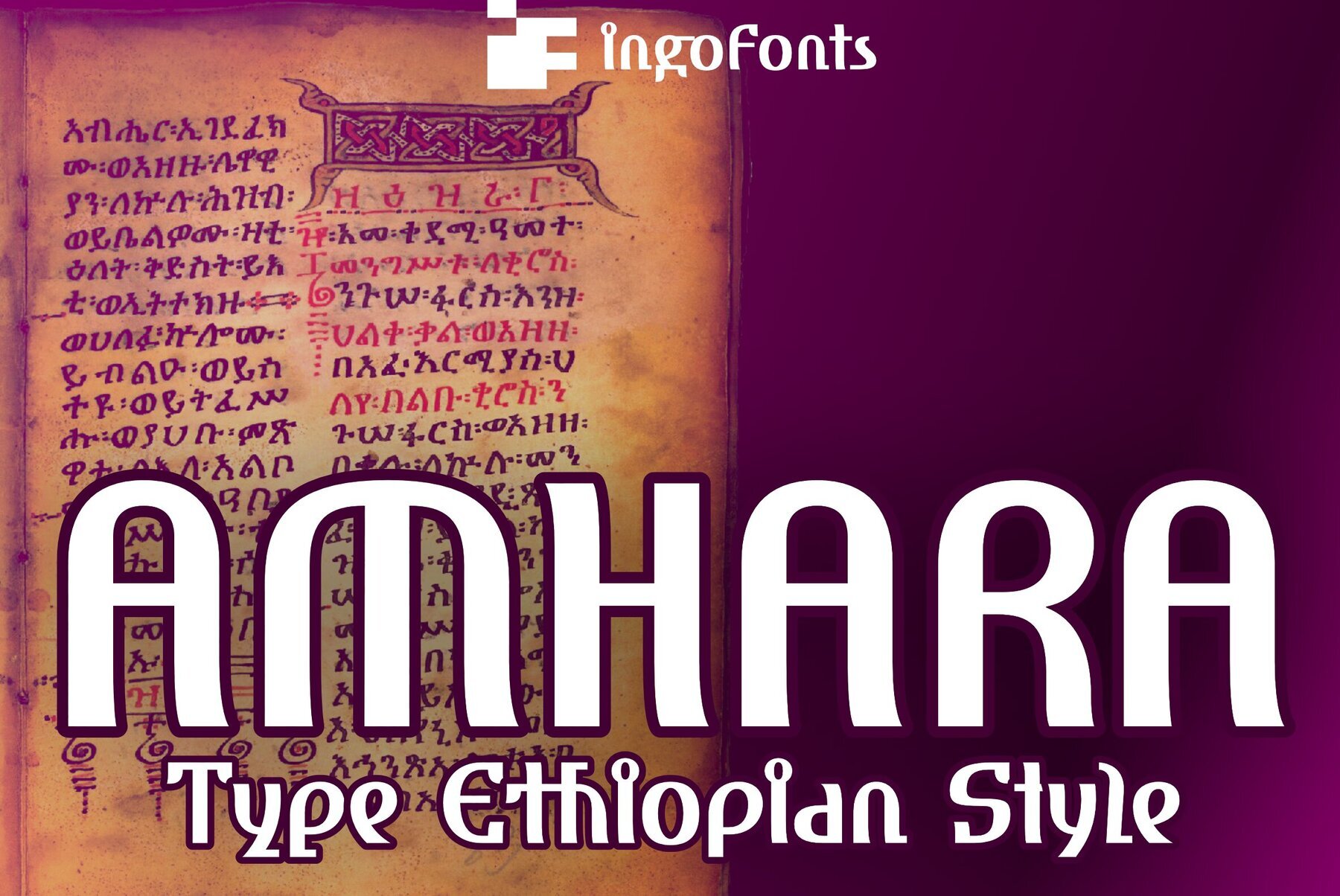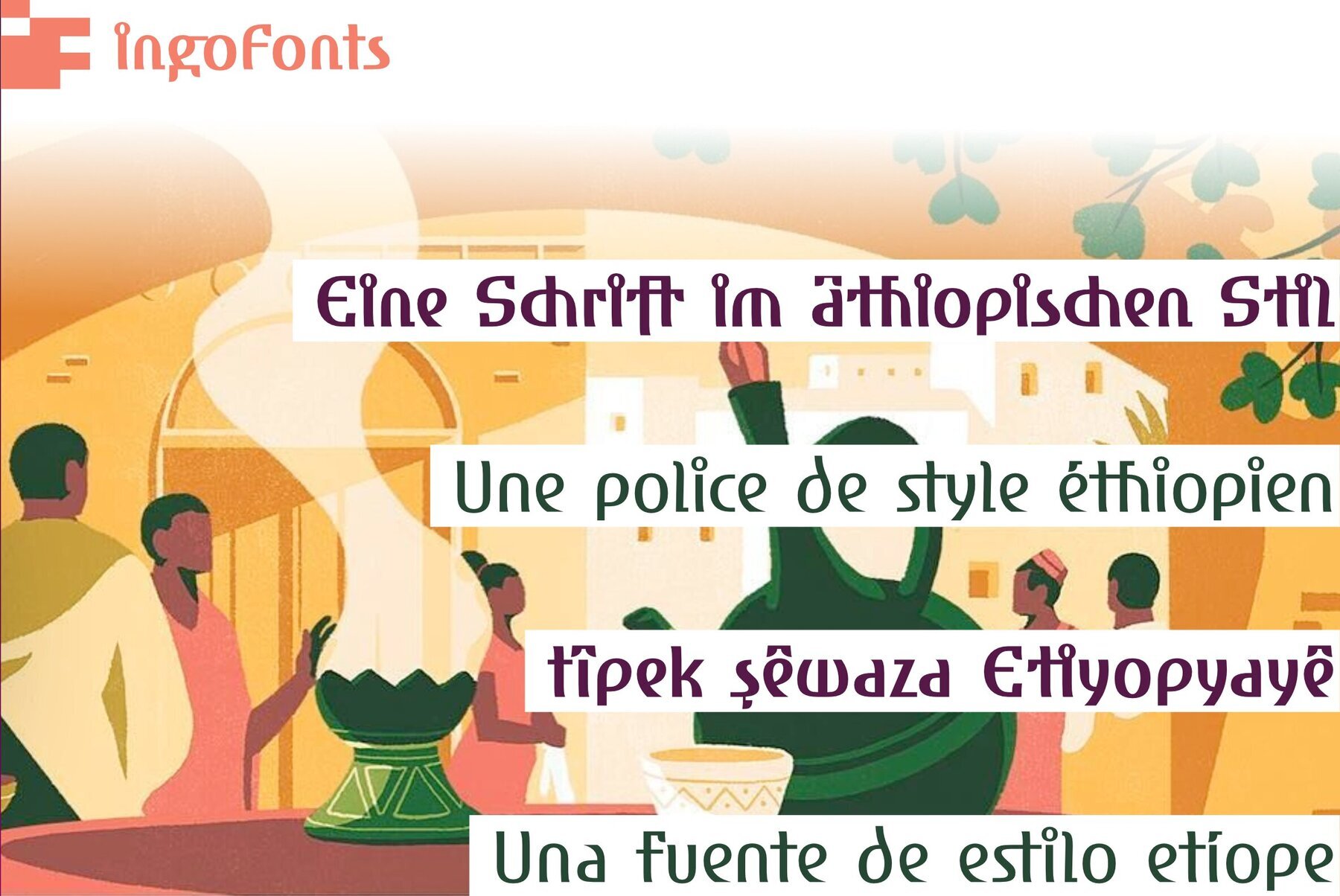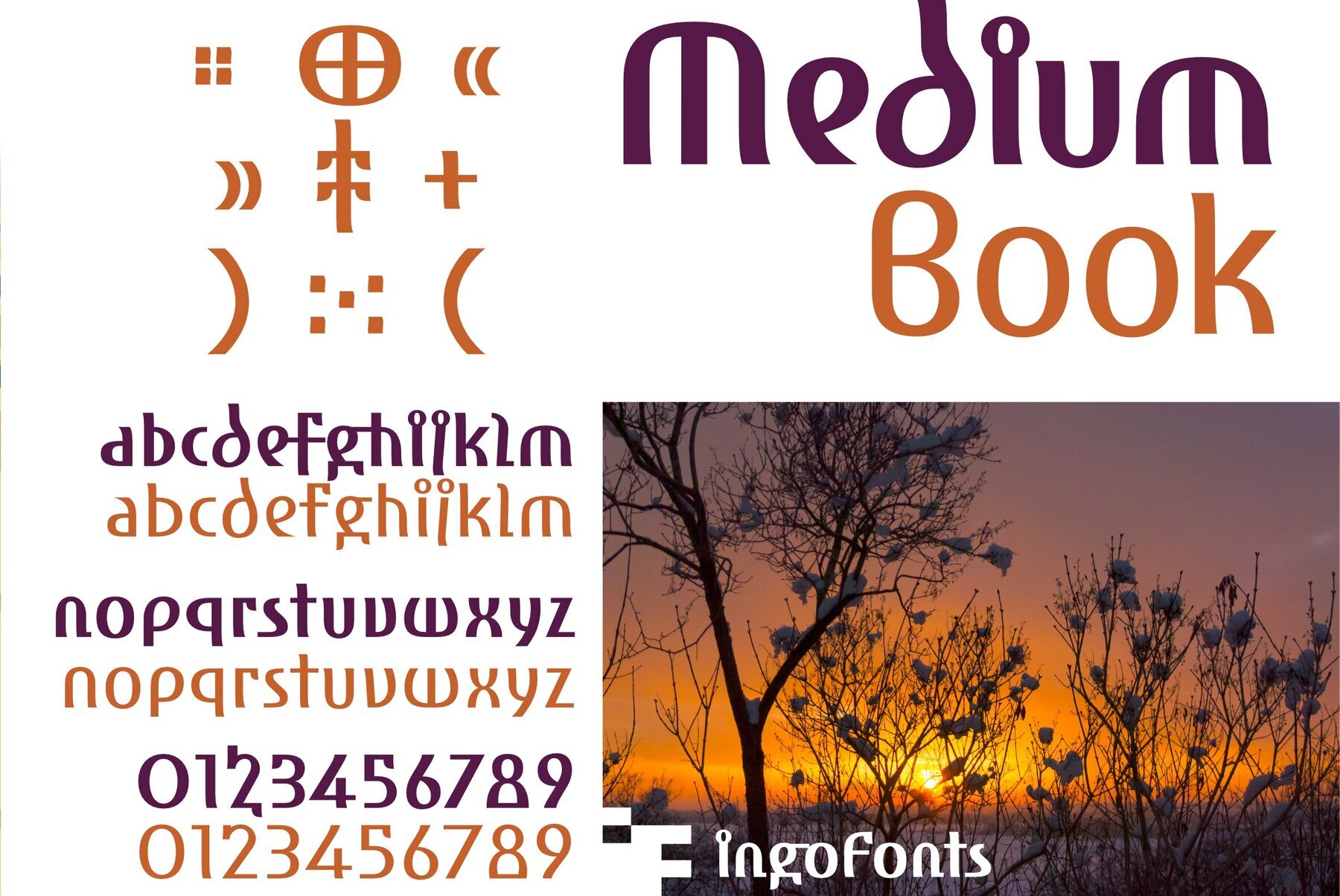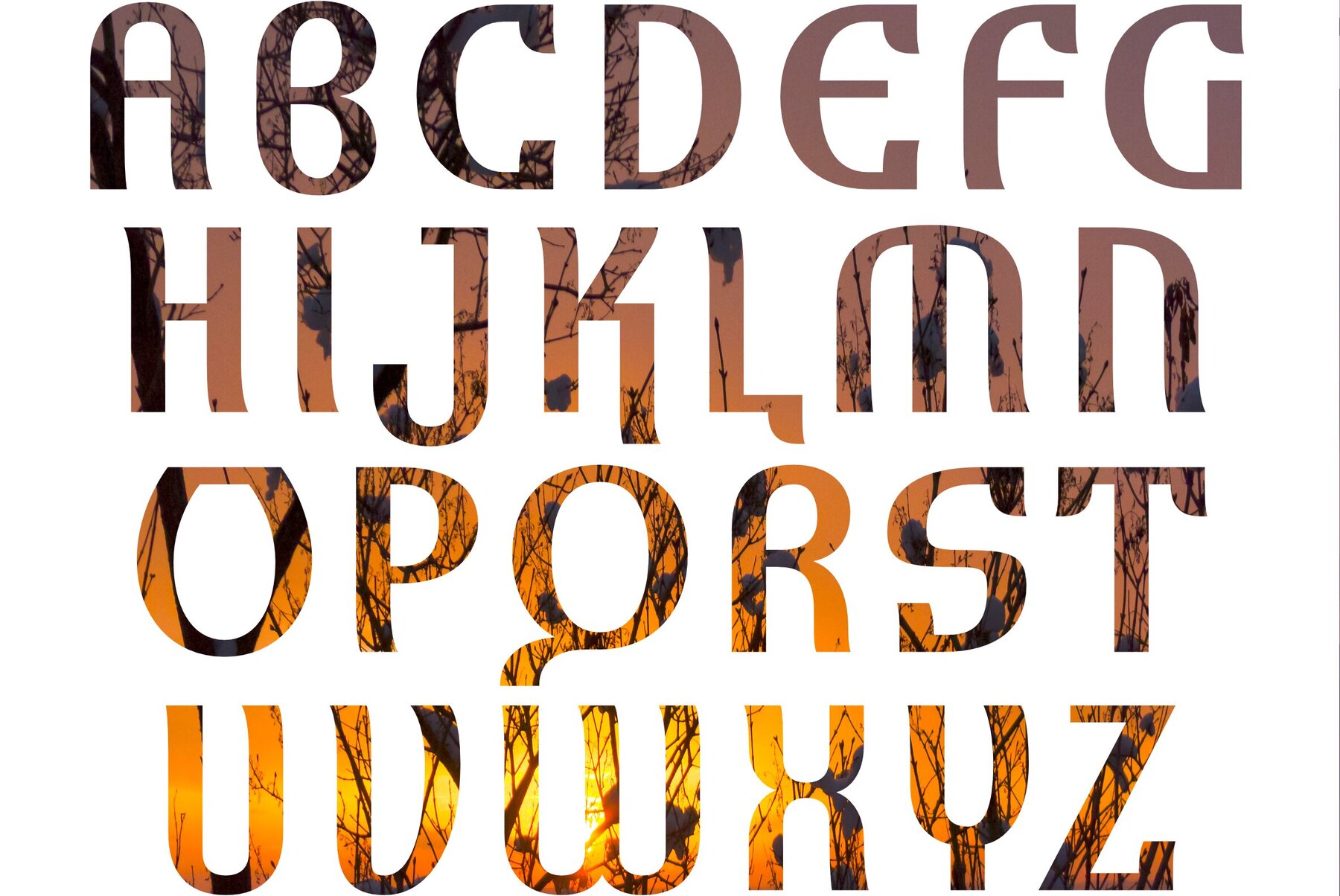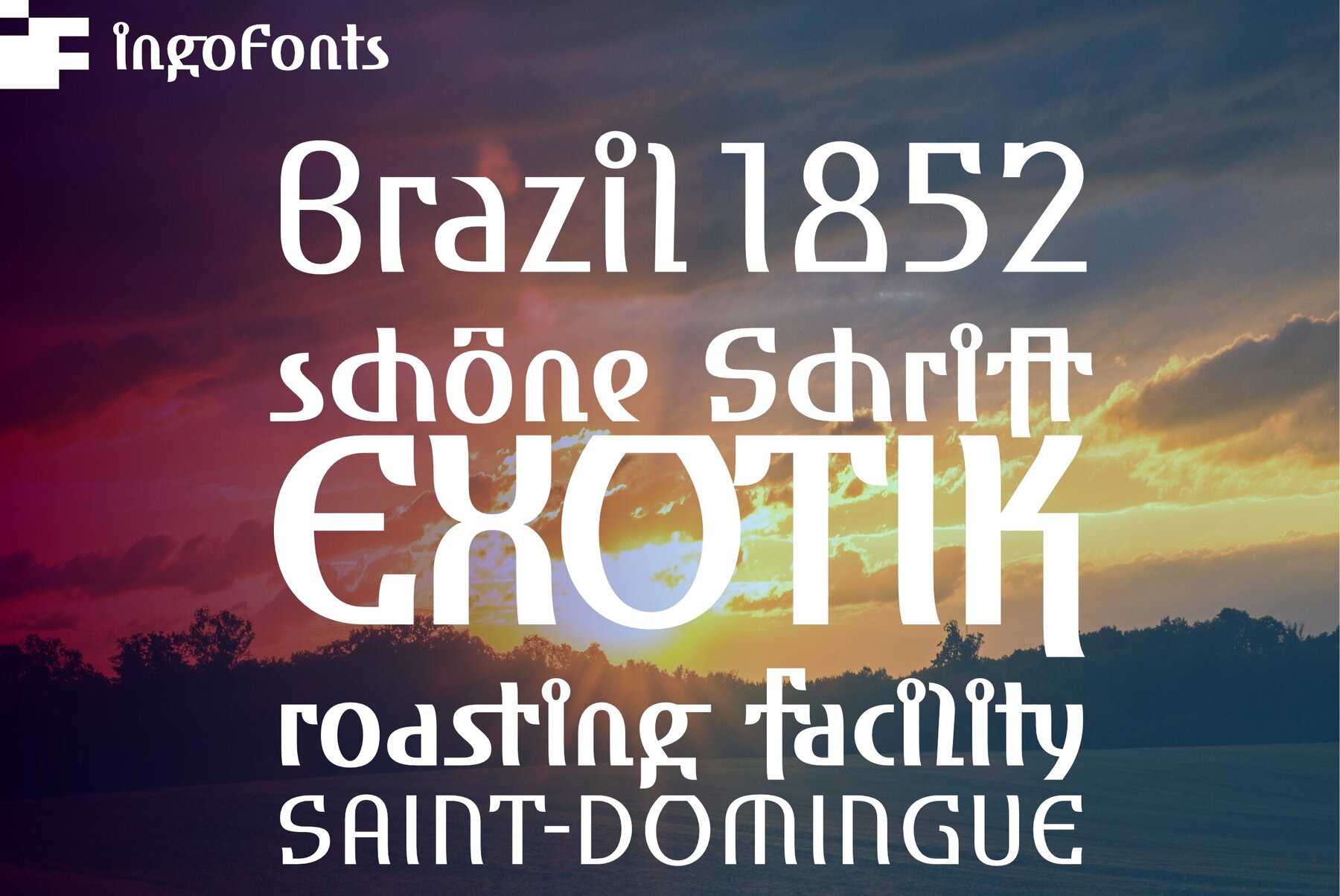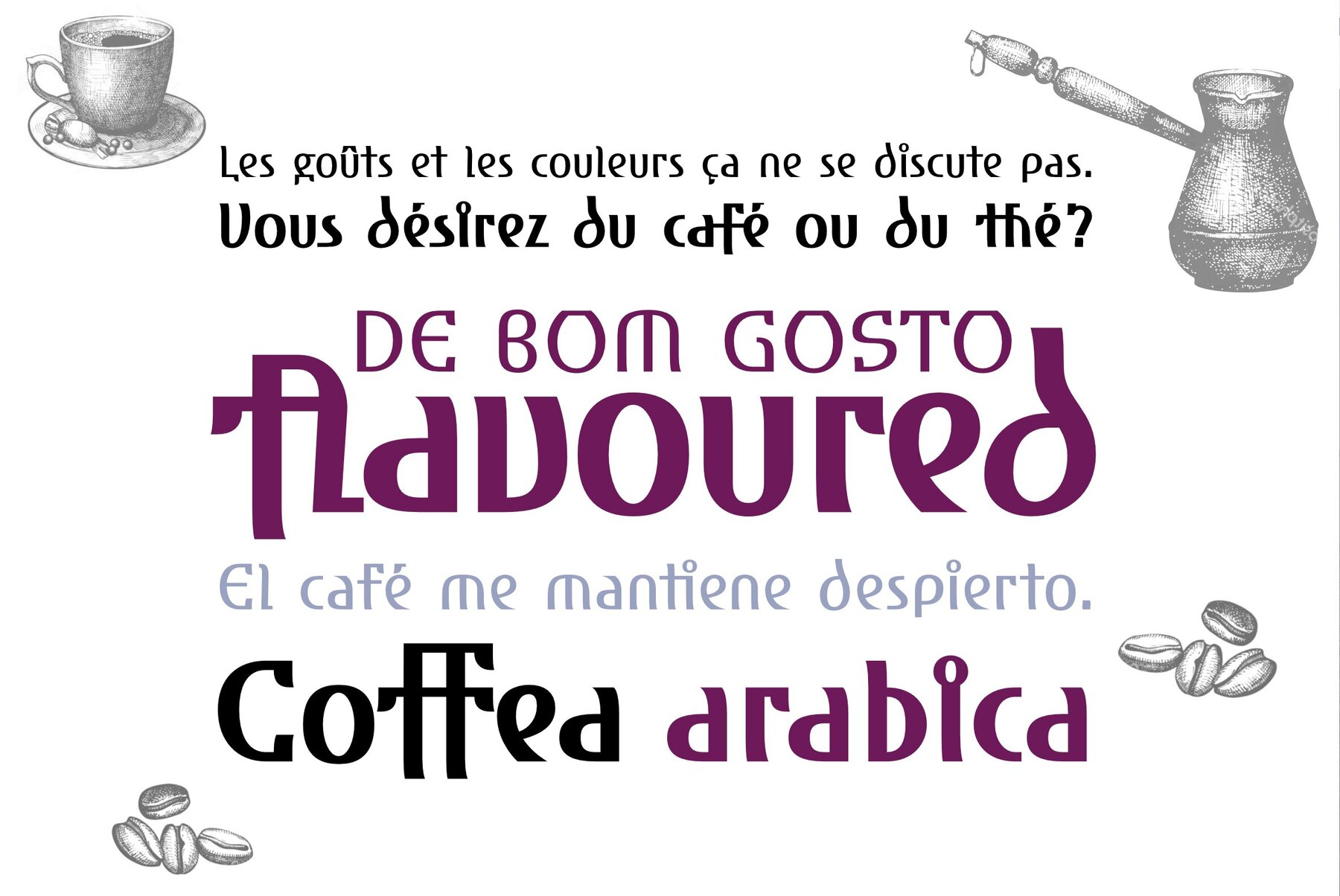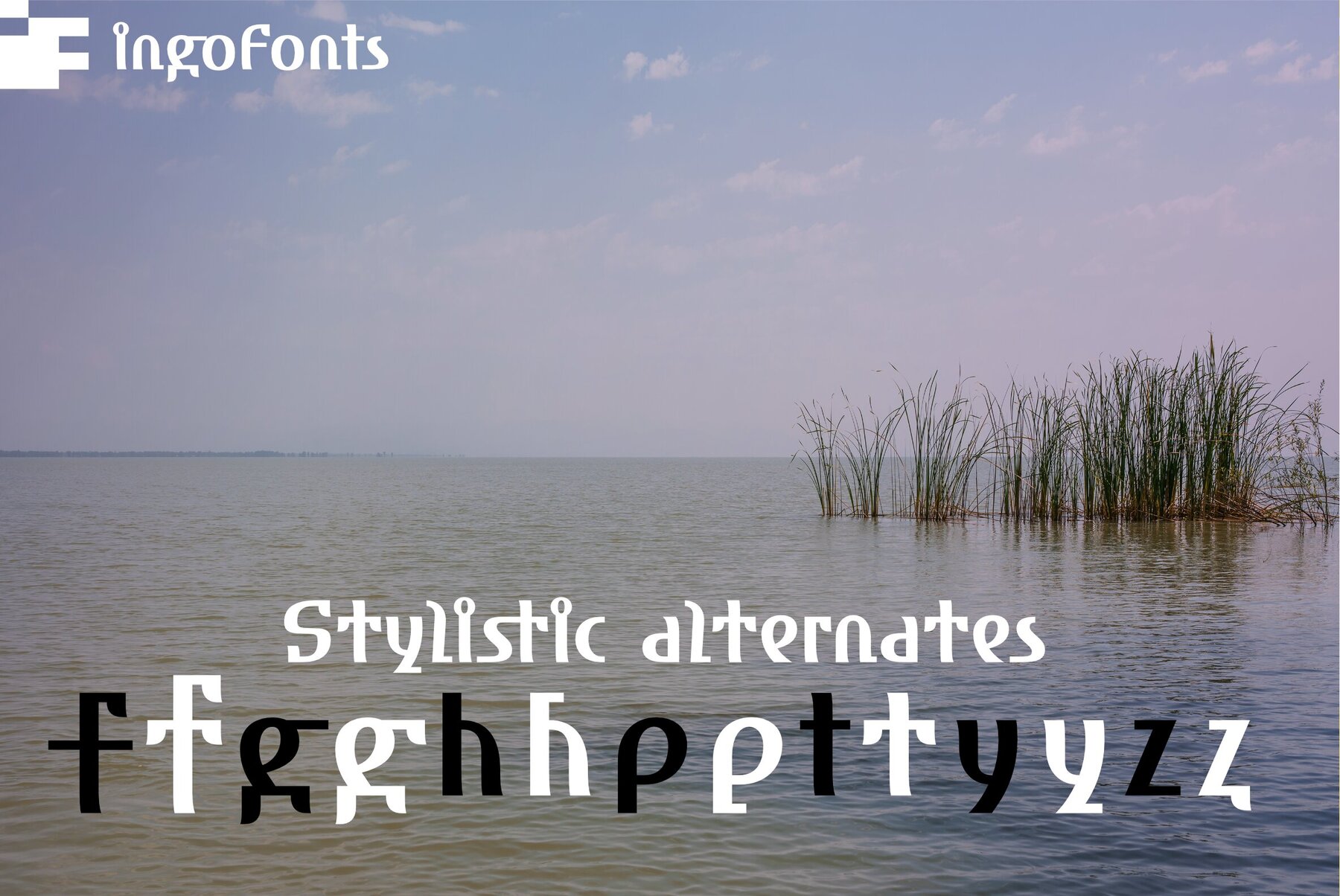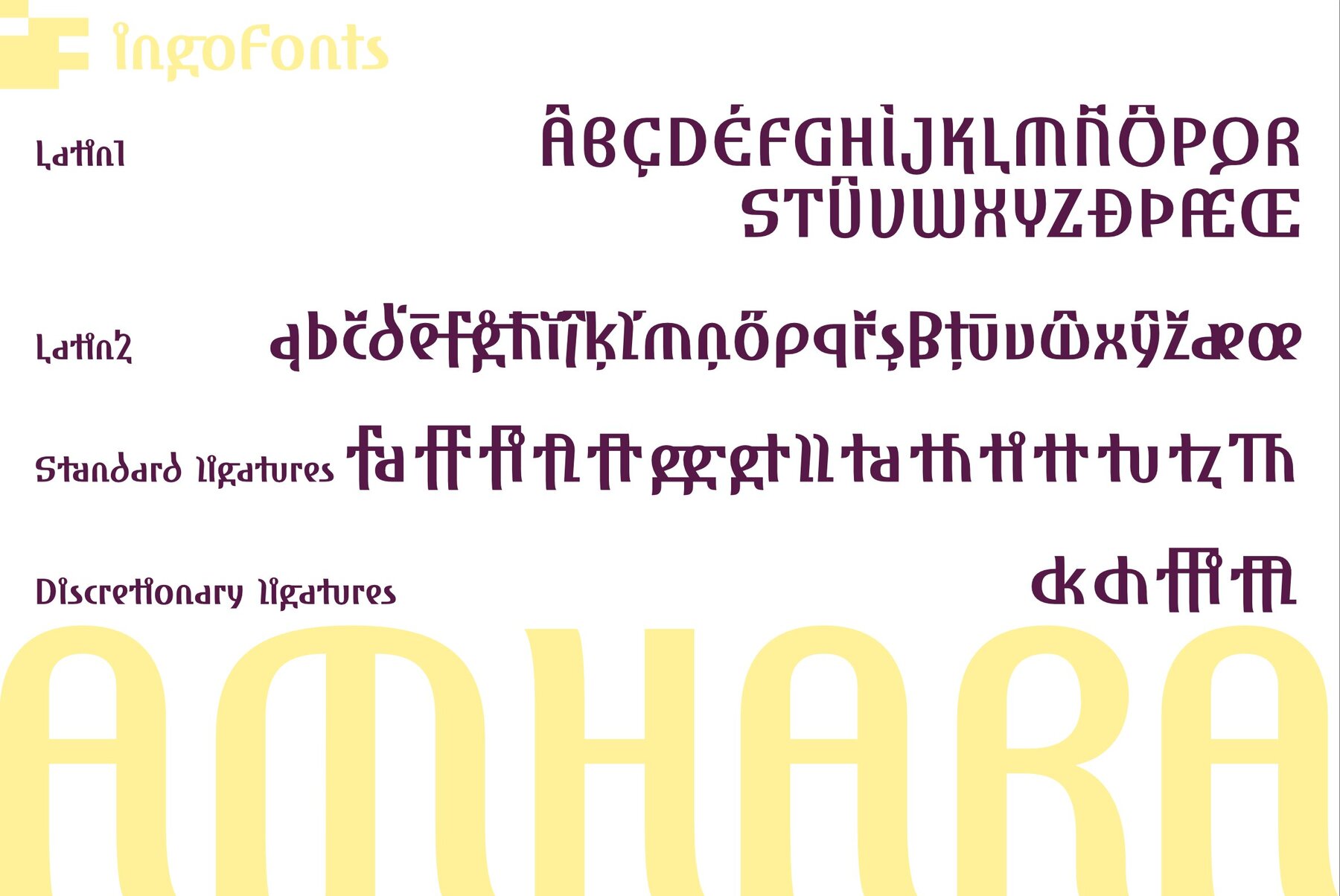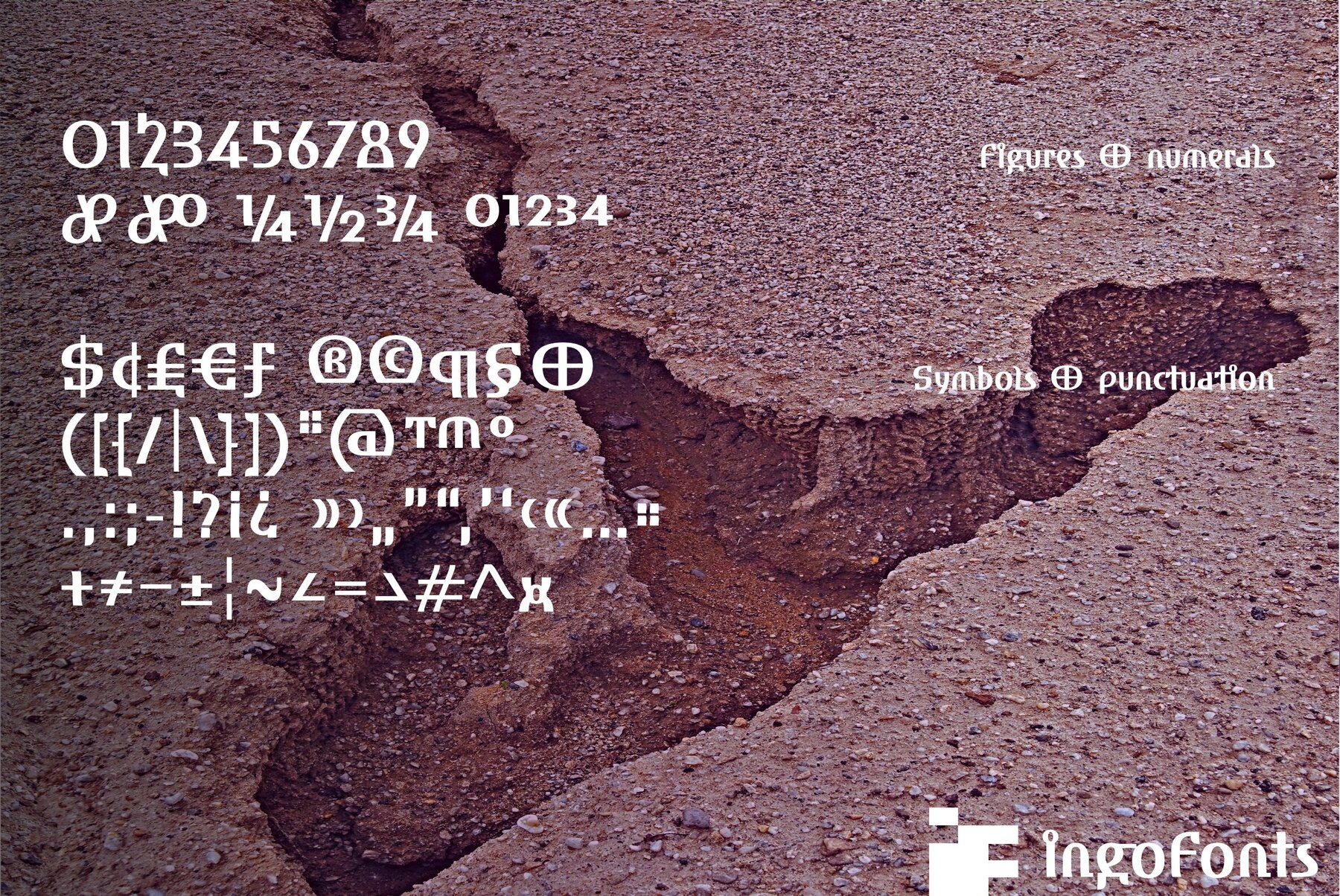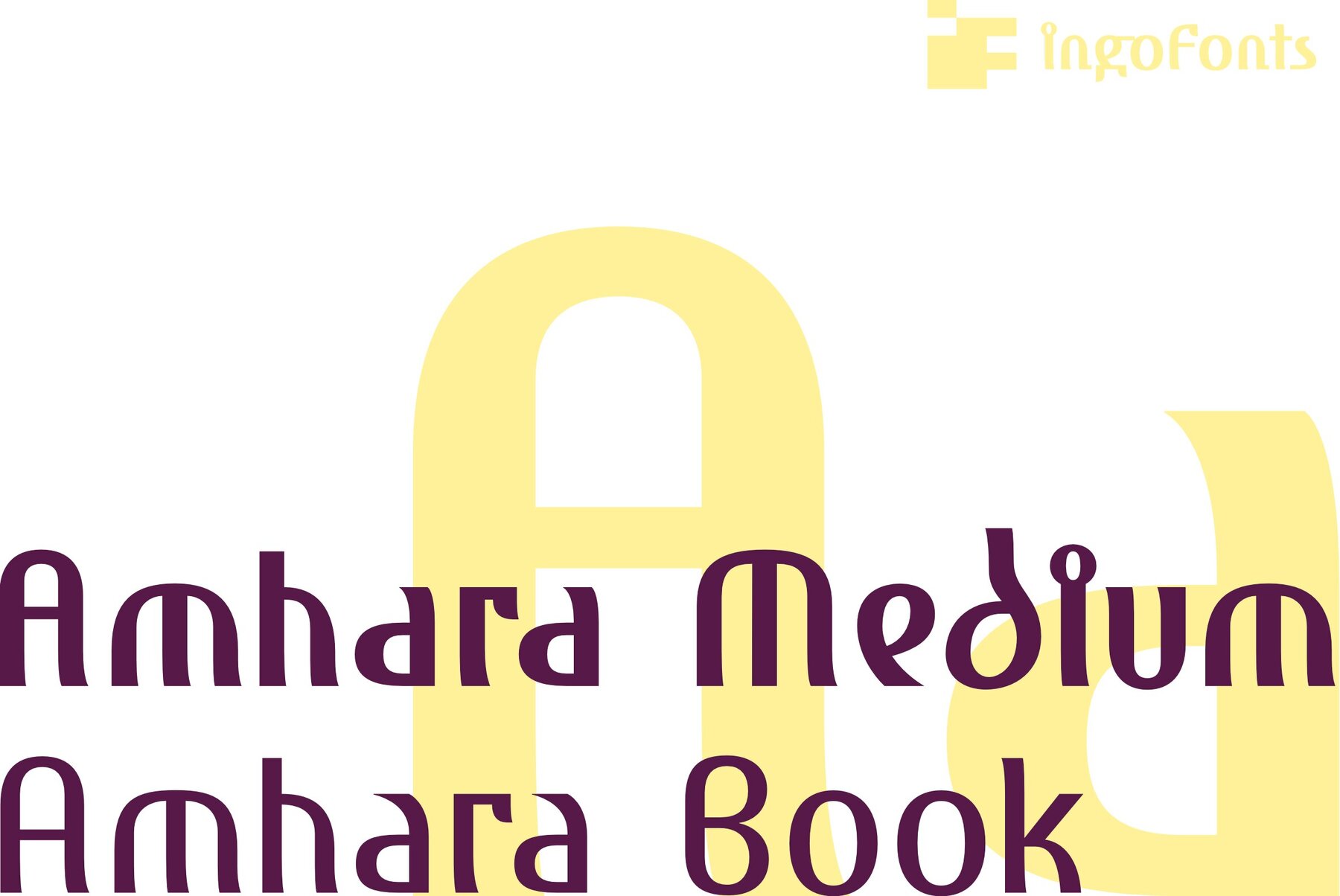
Amhara Font
expand_font Amhara Font Discover AMHARA, an experiment in creating a latin alphabet inspired by the Ethiopian Geez script, bridging the rich history and cultural tradit... SKU T14554 Decorative,African,Exotic,Tiki,Exotic,World,Peregrine,Alien,Foreign,Global South,Tropic,Third World,Unfamiliar,Strange,Outlandish,Unorthodox,Unusually,Uncommonly,Extraordinary,Ethiopia,East Africa Explore Exceptional Fonts for Digital and Traditional Media Fontpath offers a large variety of fonts for every designer, all at affordable prices and in multiple formats. Browse our best in class fonts today for all your creative needs, you can find everything you need right here at our site! Fonts,sans,sans serif,retro,script,decorative,title,FontPath 20140312040223 Fontpath offers 200,000+ of the most professional fonts found online, start downloading today! Real-Time Font Discovery at Fontpath